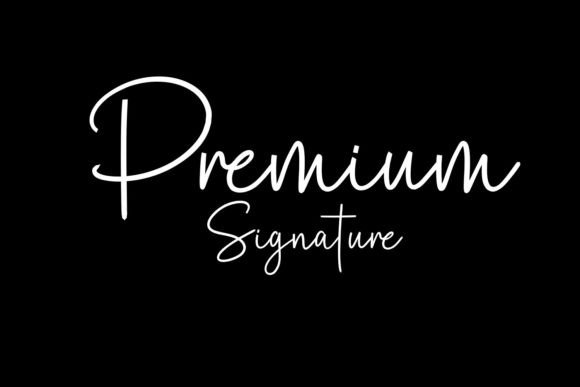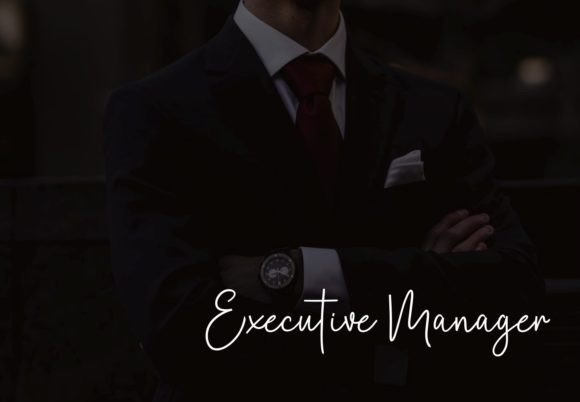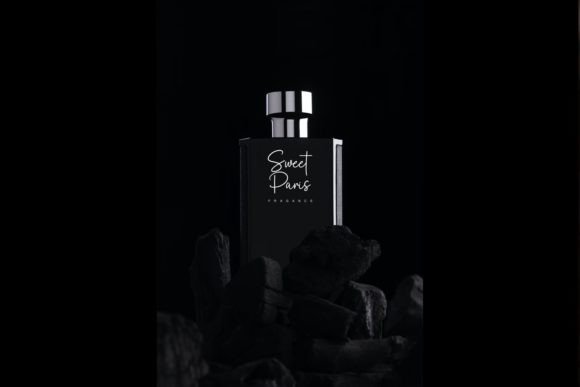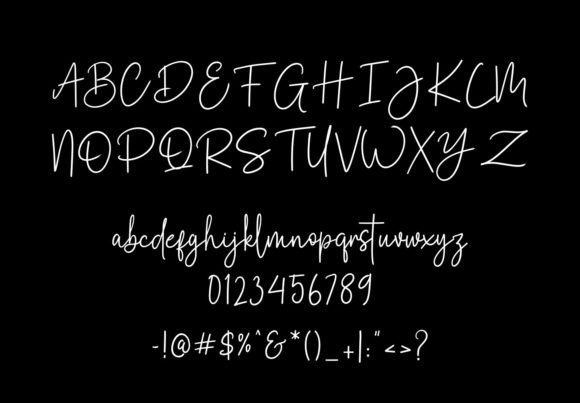
Premium Signature Font
About the Premium Signature Font
Meet Premium Signature Font, a stunning font that brings a touch of elegance and professionalism to any design. Premium Signature is a beautiful handwritten font ideal for logos, wedding stationery, photography watermarks, modern websites, and more. Fall in love with its incredibly distinct and timeless style, and use it to create spectacular designs!
Premium Signature’s elegant, yet slightly informal style shines in logos, branding projects for boutiques or lifestyle brands, and short-form text on invitations or social media graphics. It works beautifully for headlines and short, impactful statements but is less suitable for body text or lengthy paragraphs due to its script nature. Avoid using it in UI contexts requiring high readability.
Pairing it with a clean sans-serif like Montserrat or a modern serif such as Lora creates a balanced and sophisticated aesthetic. For a more playful feel, consider pairing it with a rounded geometric sans-serif font. Conversely, a delicate script font could enhance its luxurious feel for high-end applications.
Its core personality is sophisticated and approachable, lending itself well to brands projecting a sense of refined quality and personal connection.